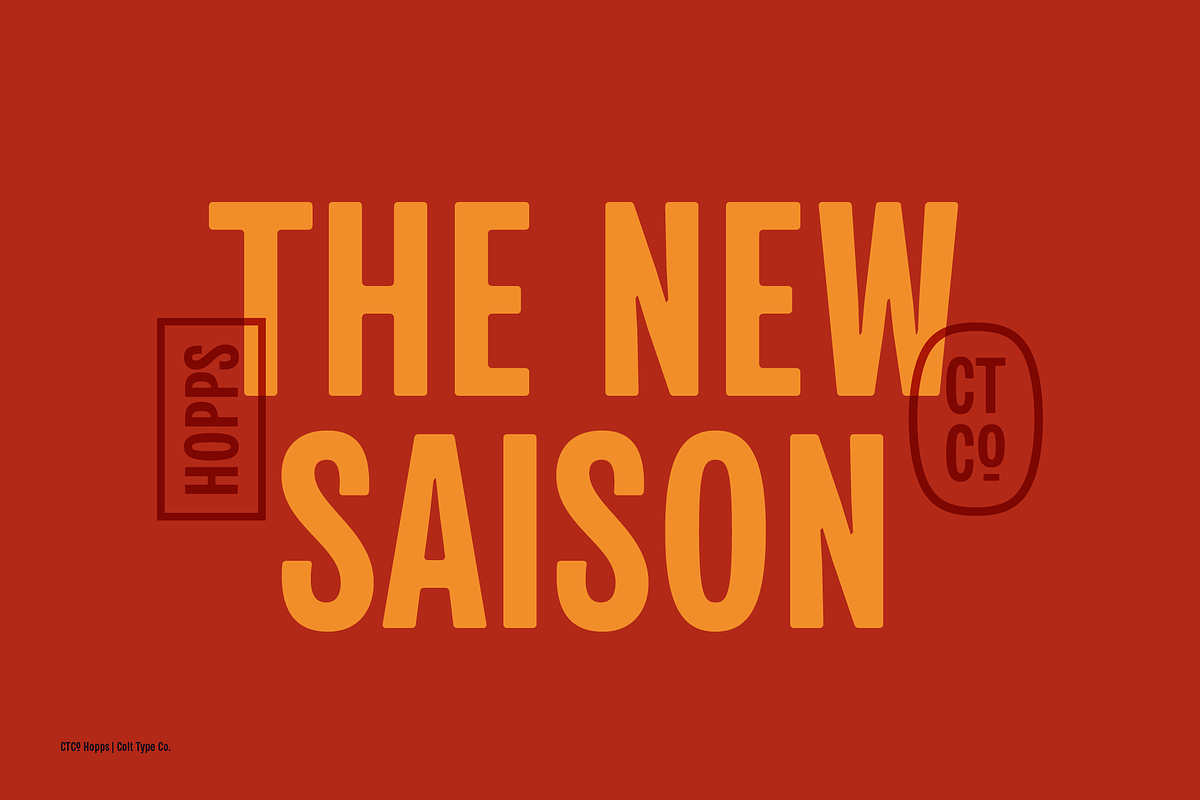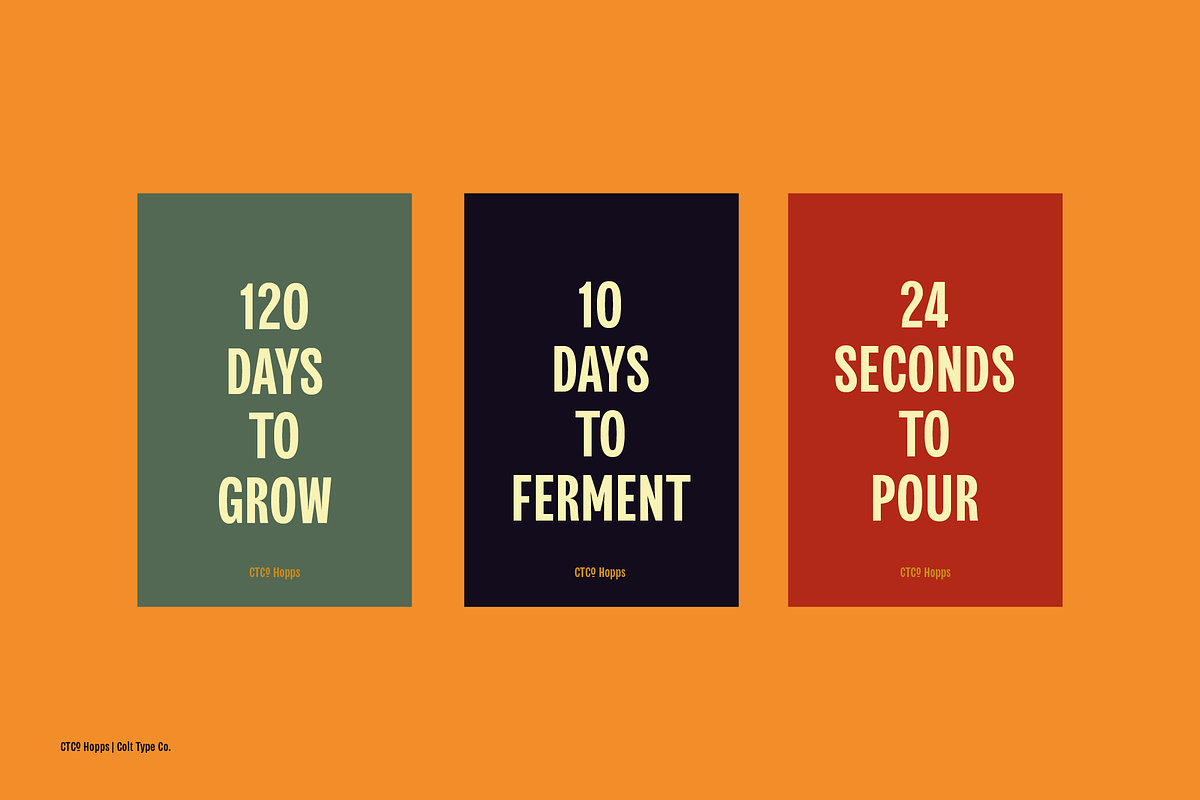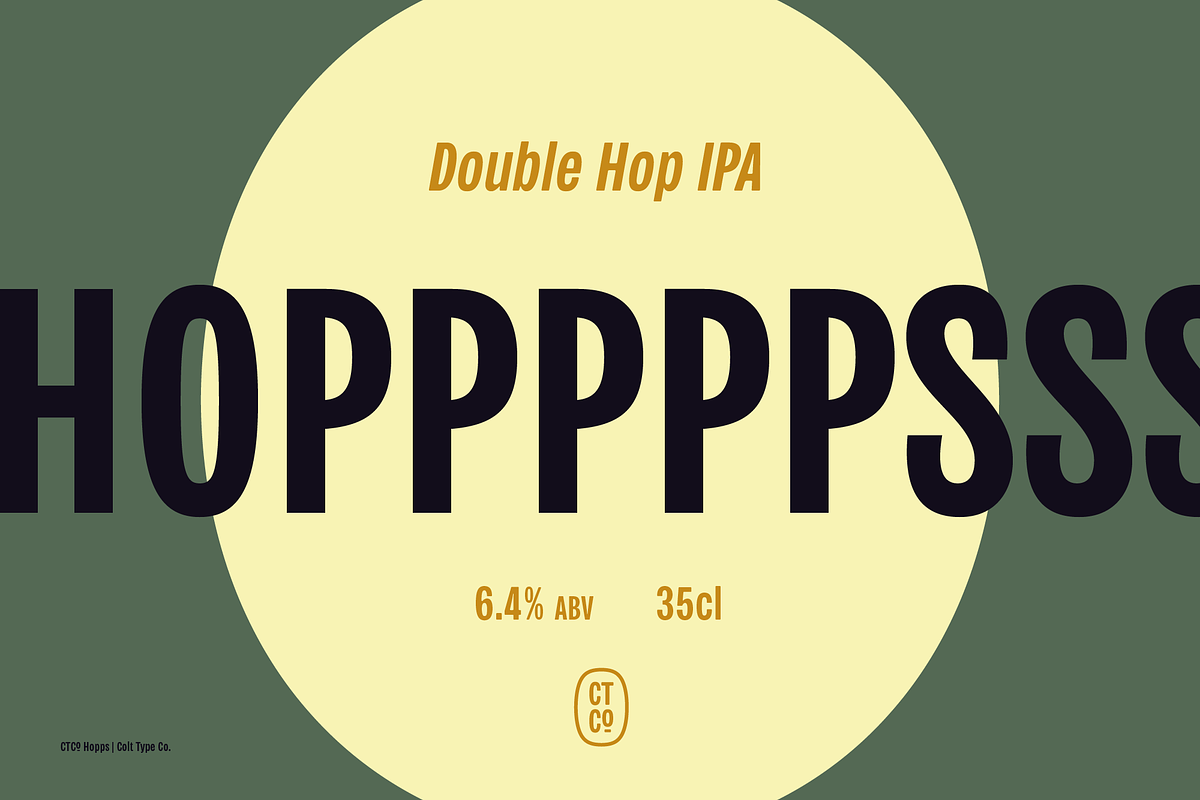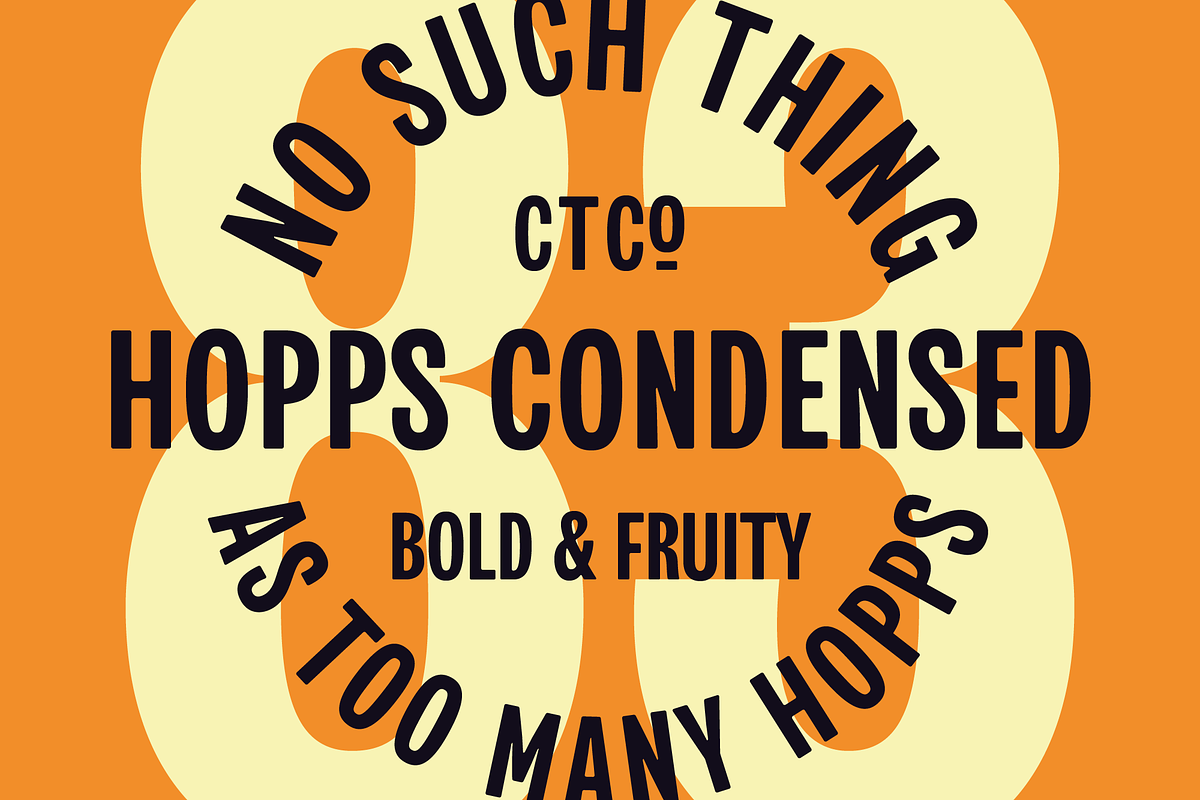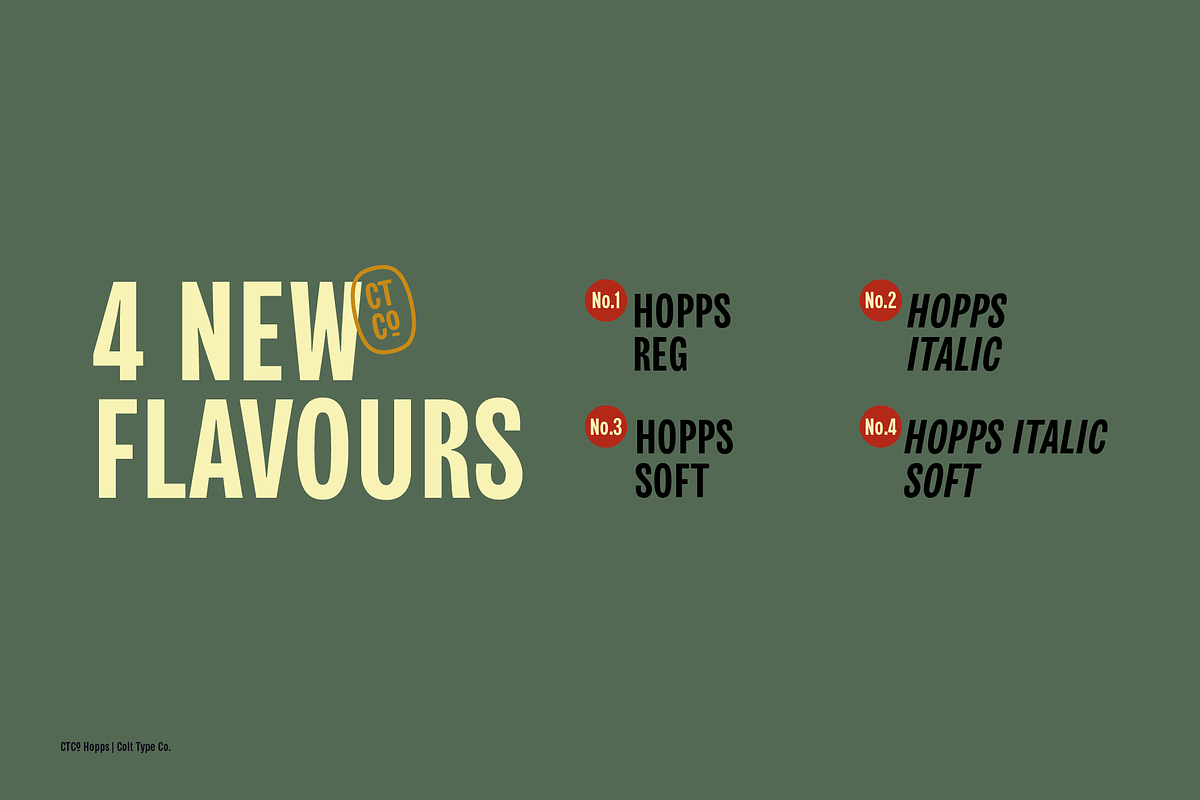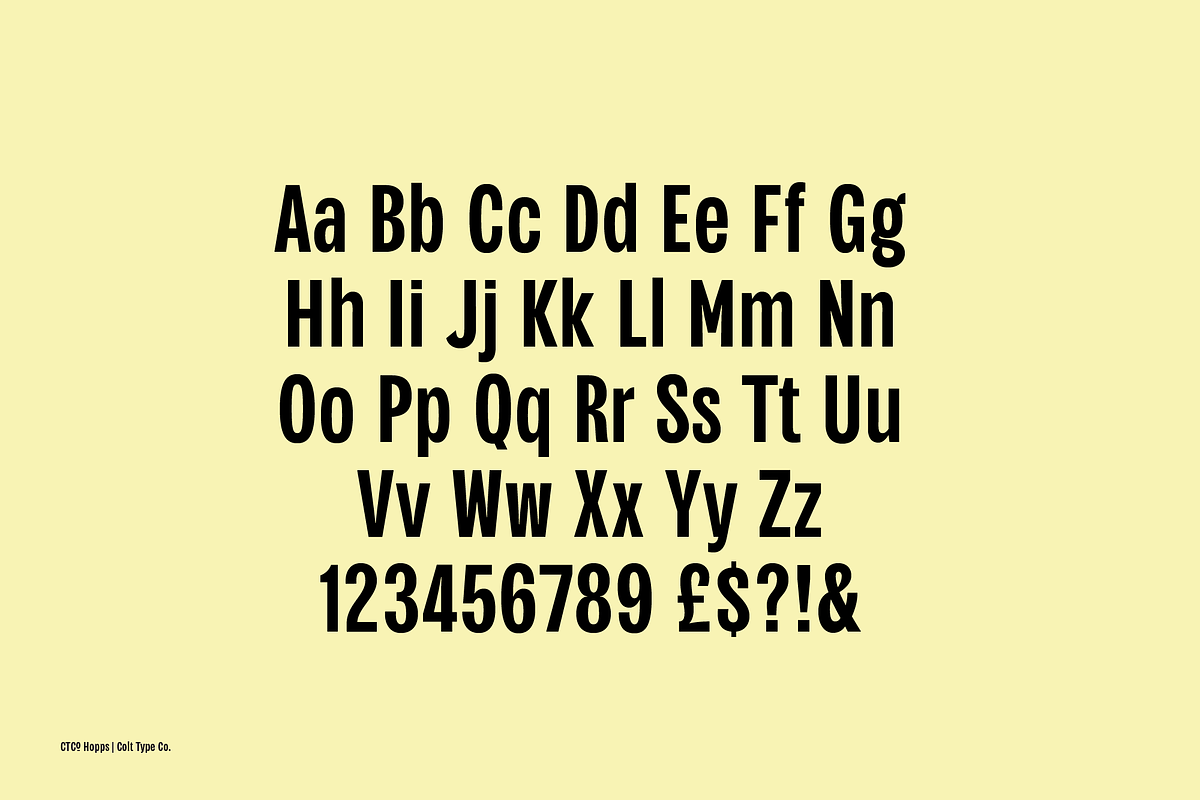
CTCo Hopps Condensed Display
CTCo Hopps Condensed is a condensed display grotesque designed for headlines, posters and logos.
Inspired by vintage beer labels, vintage posters, American signage and newspaper headlines. Utilitarian with a friendly face, CTCo Hopps Condensed is the perfect typeface to make a big statement with classic impact.
Hopps comes in 4 flavours:
- Soft (slightly rounded)
- Italic
- Italic Soft